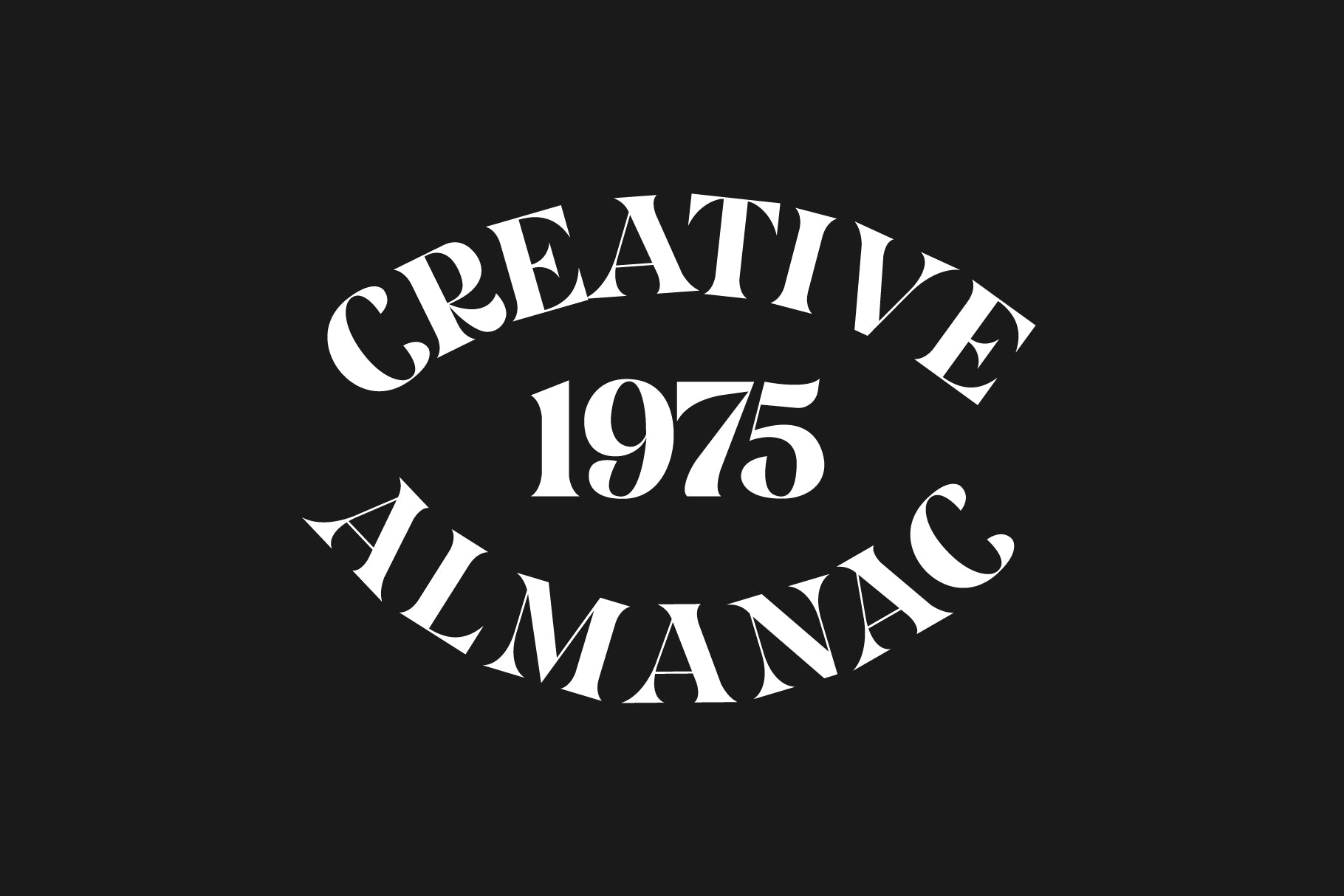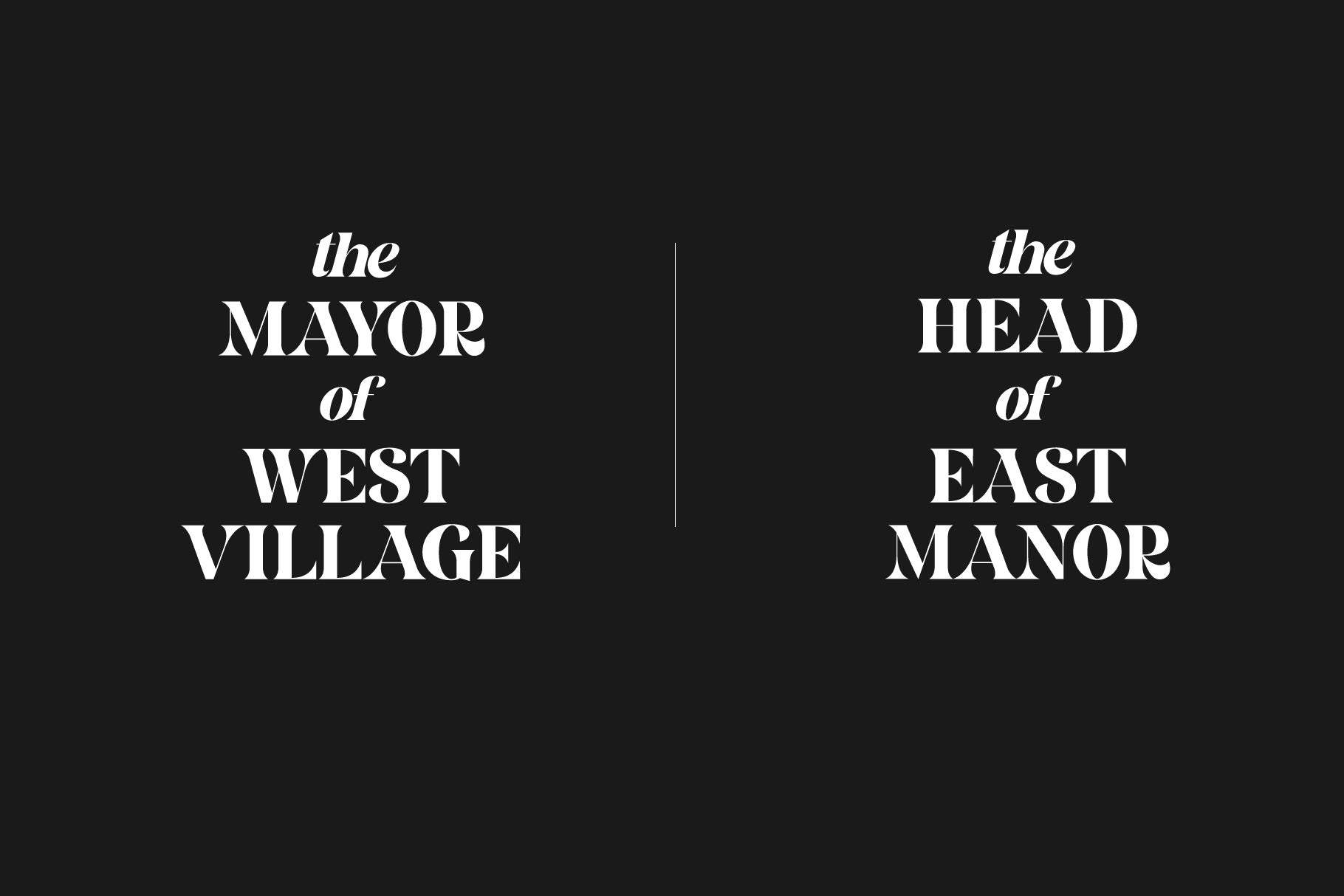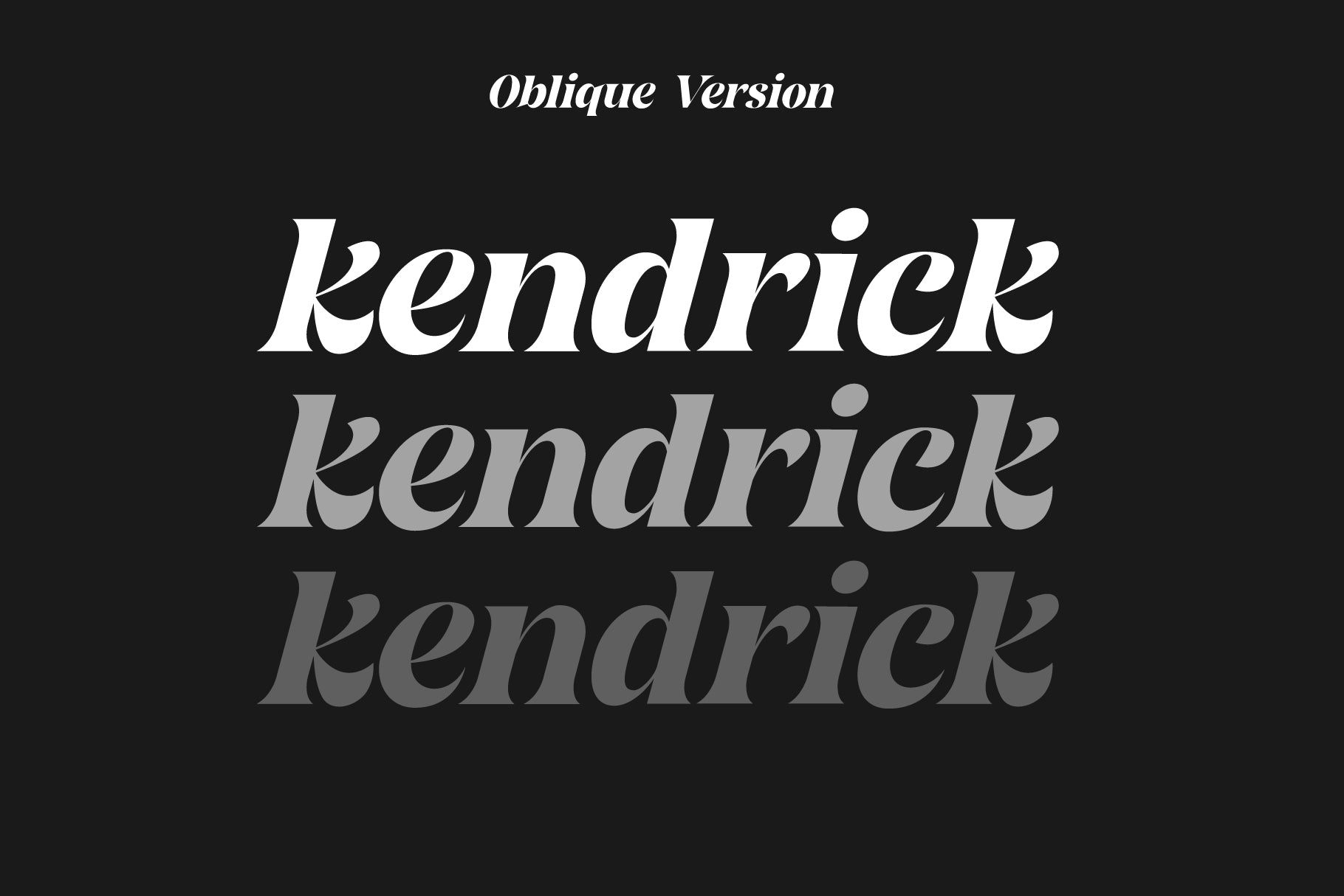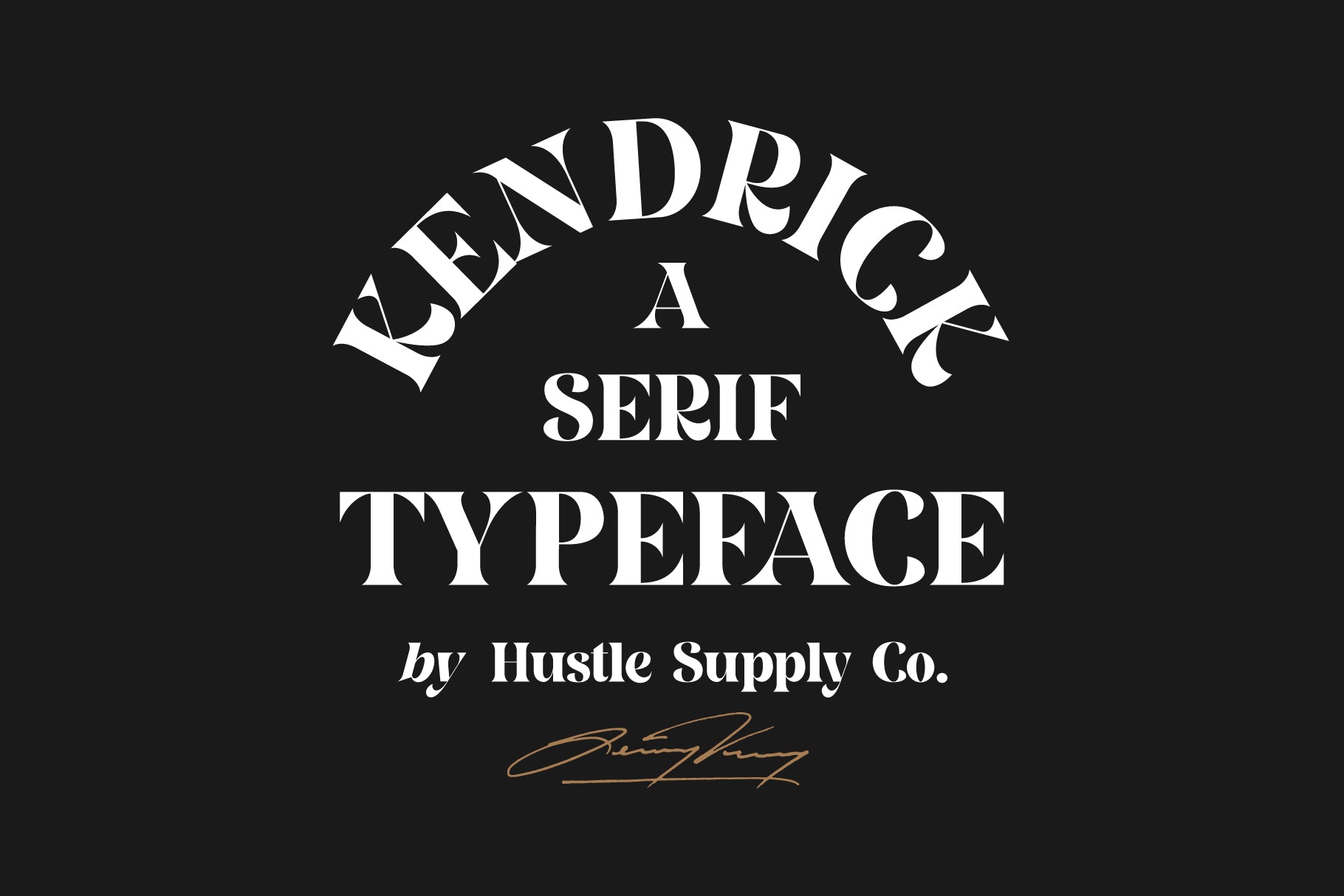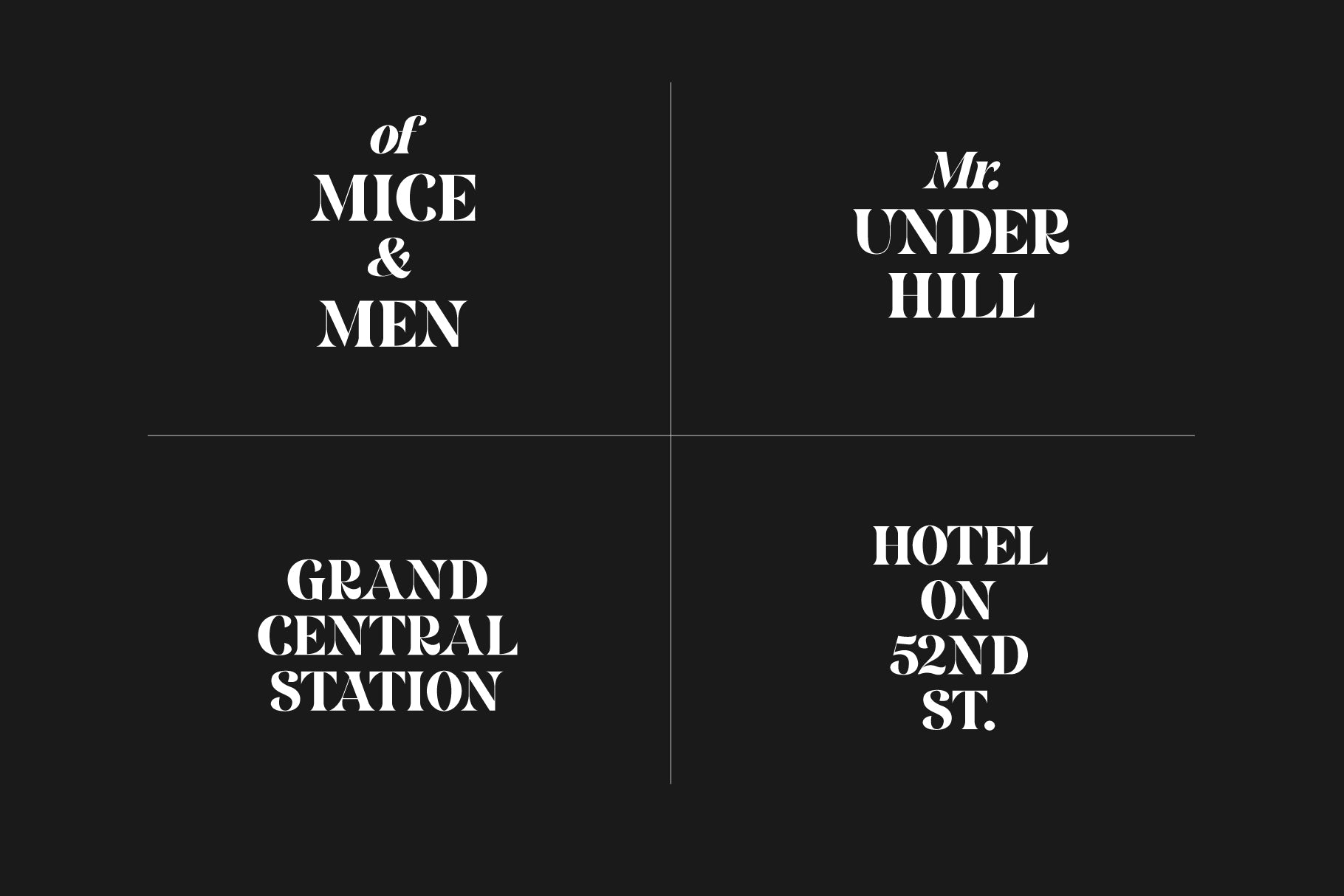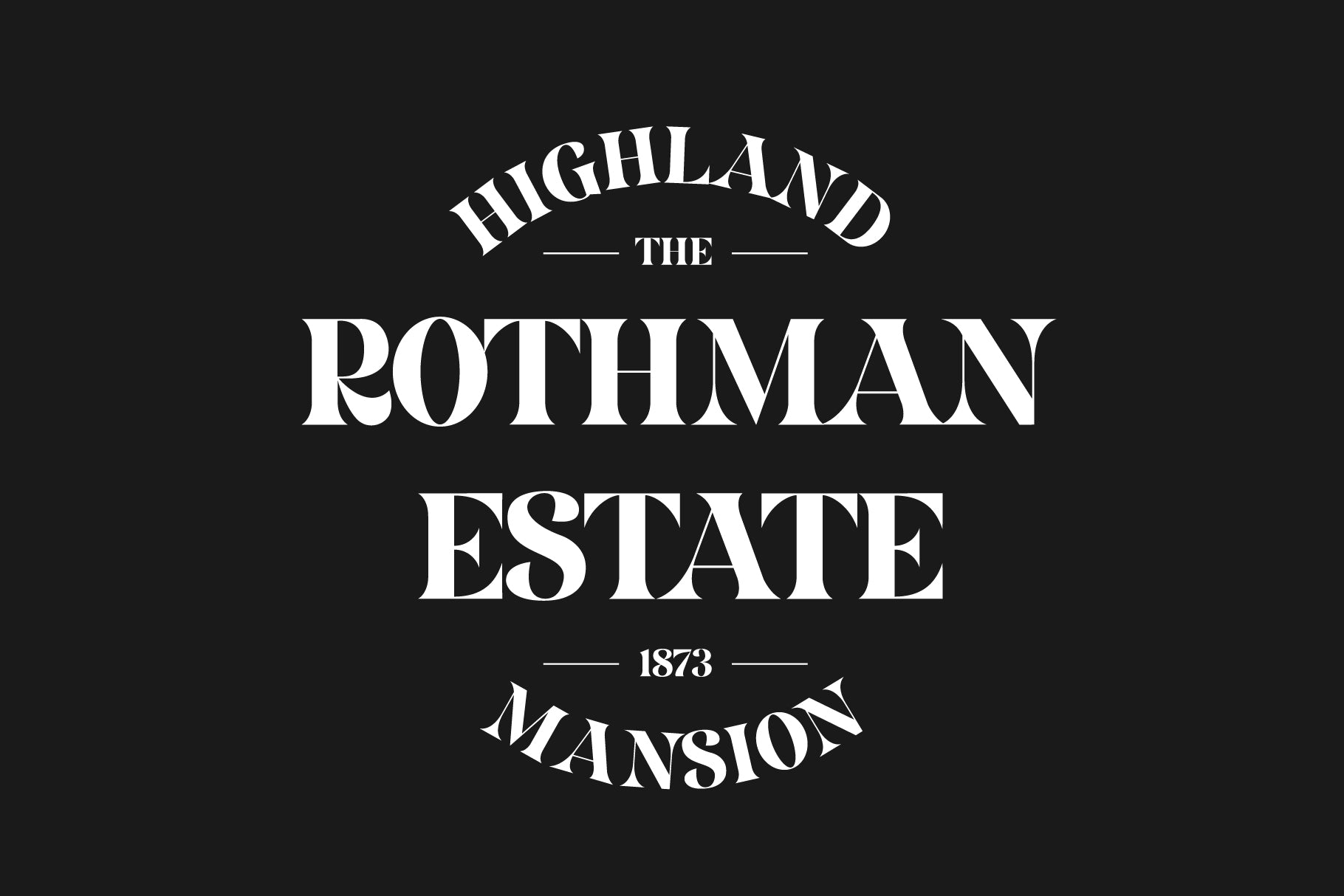
Kendrick
Kendrick Serif is a bold serif headline typeface designed by Jeremy Vessey of Hustle Supply Co. Kendrick comes with 362 glyphs, regular & oblique versions with both upper & lowercase character set.